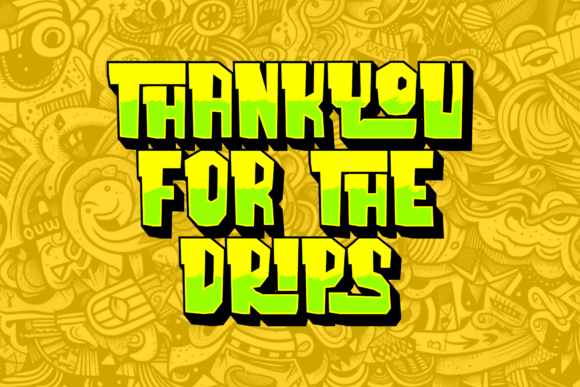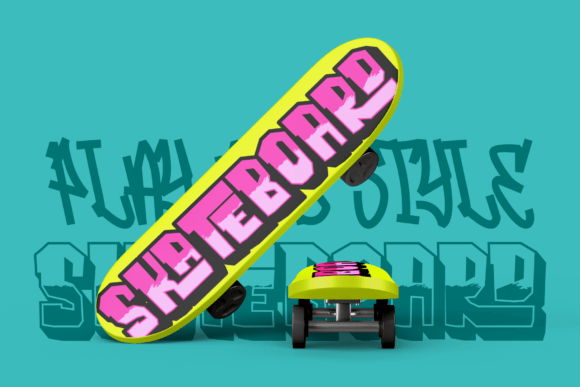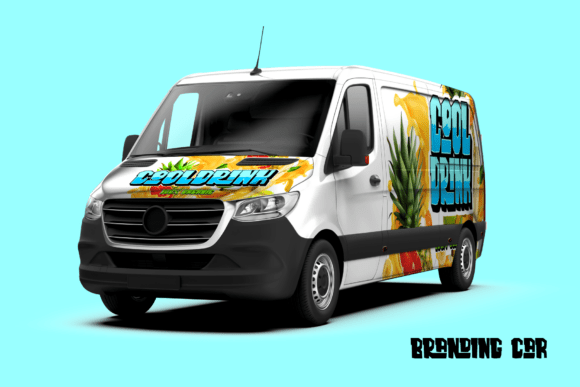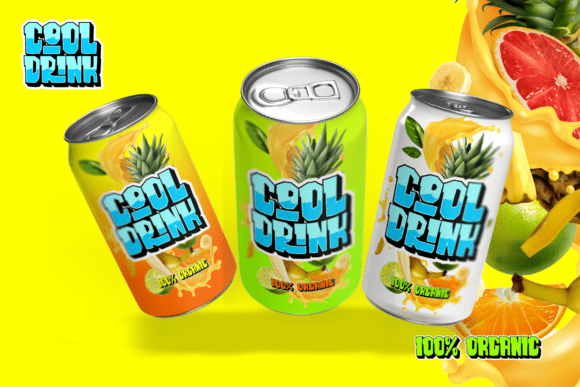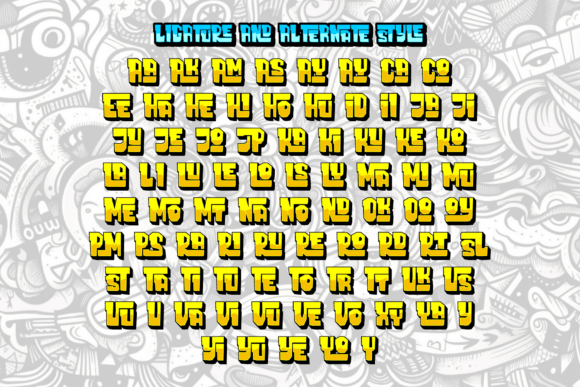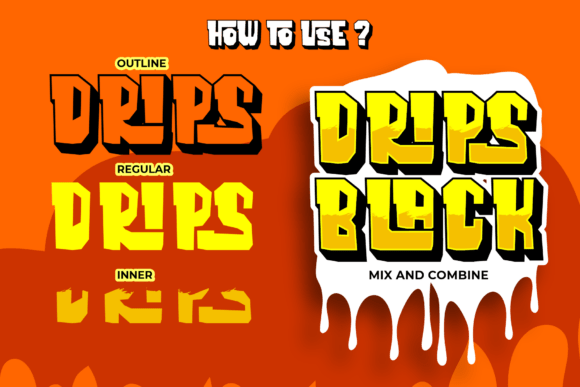
Introduction to Dripsblack Graffiti Font
Have you ever found yourself stuck on a creative project, searching for that perfect font to elevate your design? Maybe you’re crafting a bold logo for a client, or illustrating a children’s book that needs a dash of whimsy. Whatever your project, we’ve got the solution for you: the Dripsblack Graffiti Font.
This versatile font is more than just a pretty face – it’s a powerhouse of creative expression, combining bold and delicate characters in a unique balance that’s sure to grab attention. With a wide range of ligatures and letter options at your fingertips, you can craft a message that truly stands out from the crowd.
Key Features of Dripsblack Graffiti Font
- High-quality, bold, and edgy design ideal for creative projects and urban-themed artwork.
- Unique, hand-drawn style with transparent background, allowing for seamless integration into various design compositions.
- Perfect for use in graffiti-inspired artwork, street art, and urban-themed designs.
Honest Review: Dripsblack Graffiti Font
I recently came across the Dripsblack Graffiti Font, and I’m excited to share my thoughts on this design resource. As a designer, I’m always on the lookout for high-quality fonts that can elevate my creative projects.
The Dripsblack Graffiti Font is a free download that offers a unique and edgy style, perfect for those who want to add a touch of graffiti to their designs. ✨ The font’s bold and expressive lines make it ideal for use in headings, titles, and other prominent text elements.
Here are some of the font’s key features:
- High-quality design with transparent background
- Perfect for use in creative projects, such as posters, flyers, and social media graphics
One of the limitations of the Dripsblack Graffiti Font is its limited character set. ⚠️ While it’s still a useful resource, it may not be suitable for use in longer blocks of text or for those who need a wide range of characters.
Overall, I’m impressed with the Dripsblack Graffiti Font. Its unique style and high-quality design make it a valuable addition to any designer’s toolkit. I’d definitely recommend it to anyone looking for a creative and eye-catching font for their next project.
Tips for Getting the Most Out of Dripsblack Graffiti Font
For best results, pair the Dripsblack Graffiti Font with a contrasting background to make the text stand out. Experiment with different font sizes and styles to add visual interest to your design.
Common Use Cases for Dripsblack Graffiti Font
The Dripsblack Graffiti Font is perfect for a variety of design projects, including posters, flyers, business cards, and social media graphics. Its unique, high-quality design makes it an ideal resource for creatives looking to add a bold touch to their work.